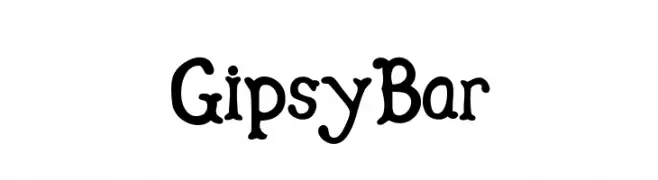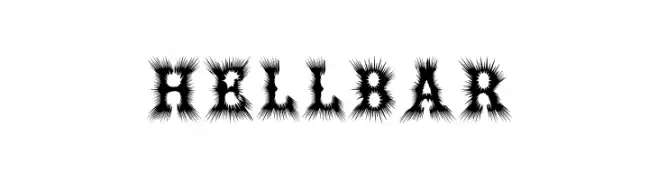
( Fonts by Bumbayo Font Fabrik )
A bold, distressed font with a vintage, handcrafted appearance.
( Fonts by WrW )
A casual, handwritten-style font with irregular strokes and a personal touch.
( Fonts by Darrell Flood )
A playful, bold font with thick, rounded outlines and a cartoonish style.
A bold, spiky, and dynamic decorative font with a unique, edgy style.
( Fonts by Hanoded )
A bold, hand-drawn font with a rough, expressive style.
A playful, bold font with a hand-drawn, three-dimensional shadow effect.
A playful, hand-drawn font with irregular, wavy strokes and a whimsical style.